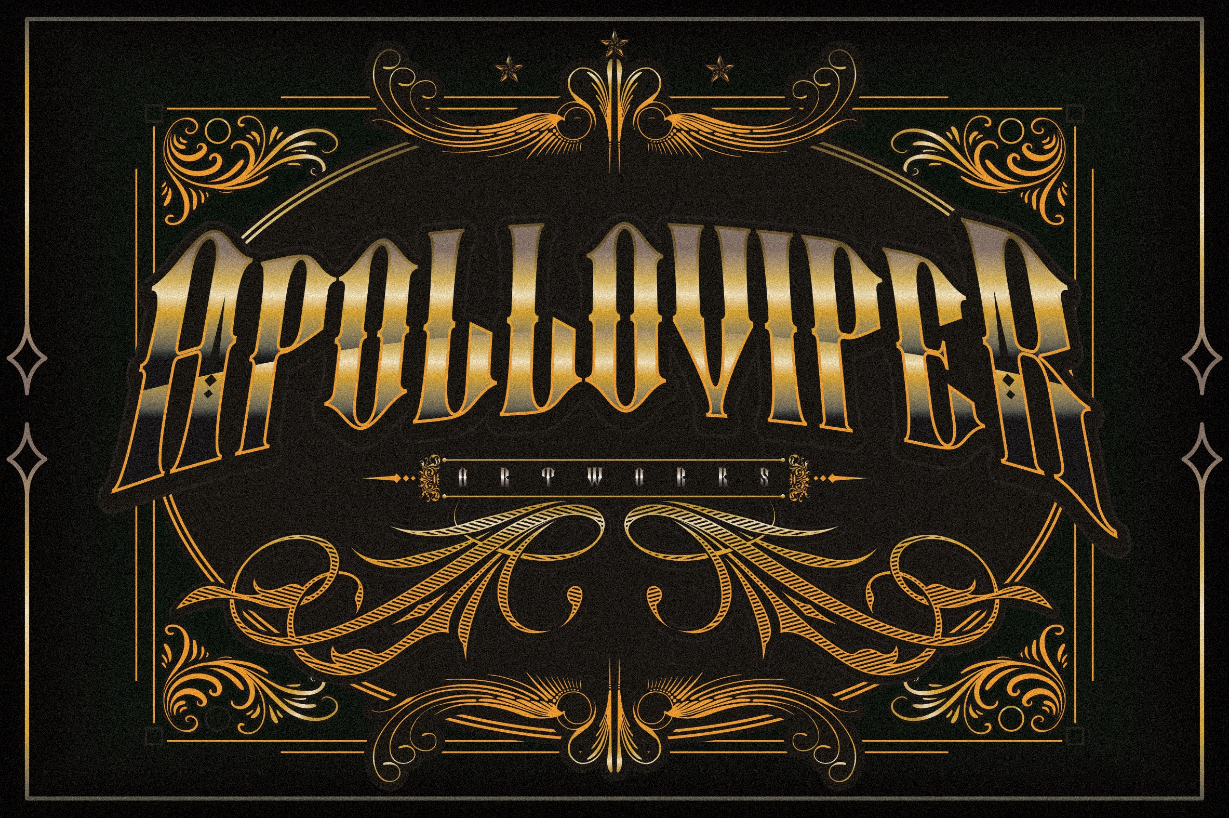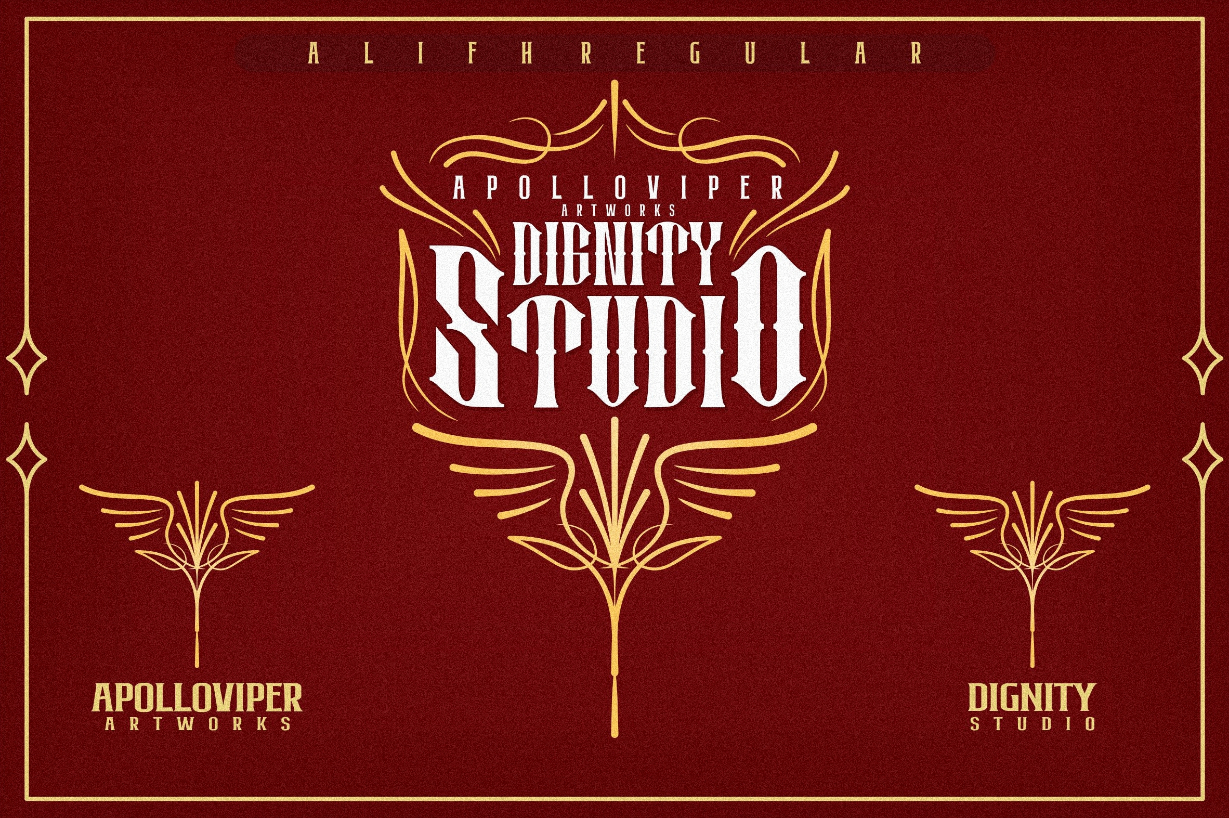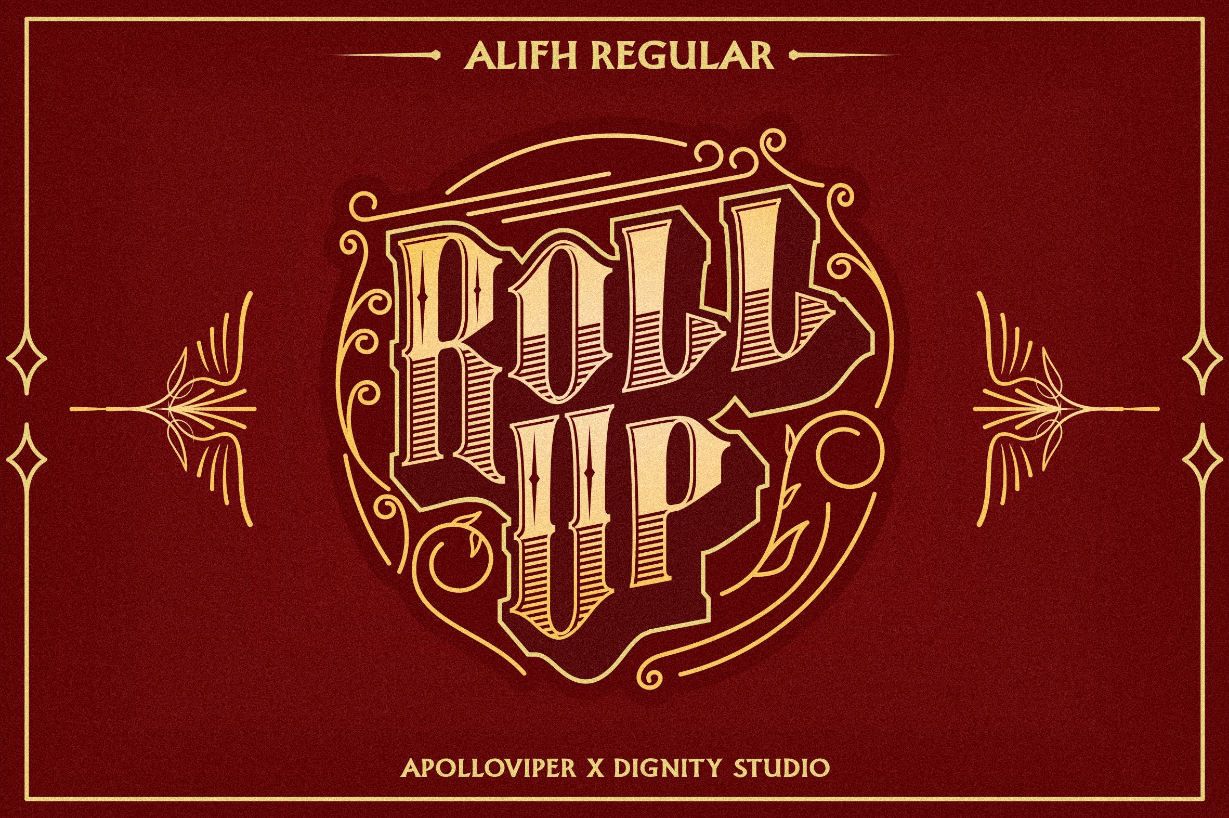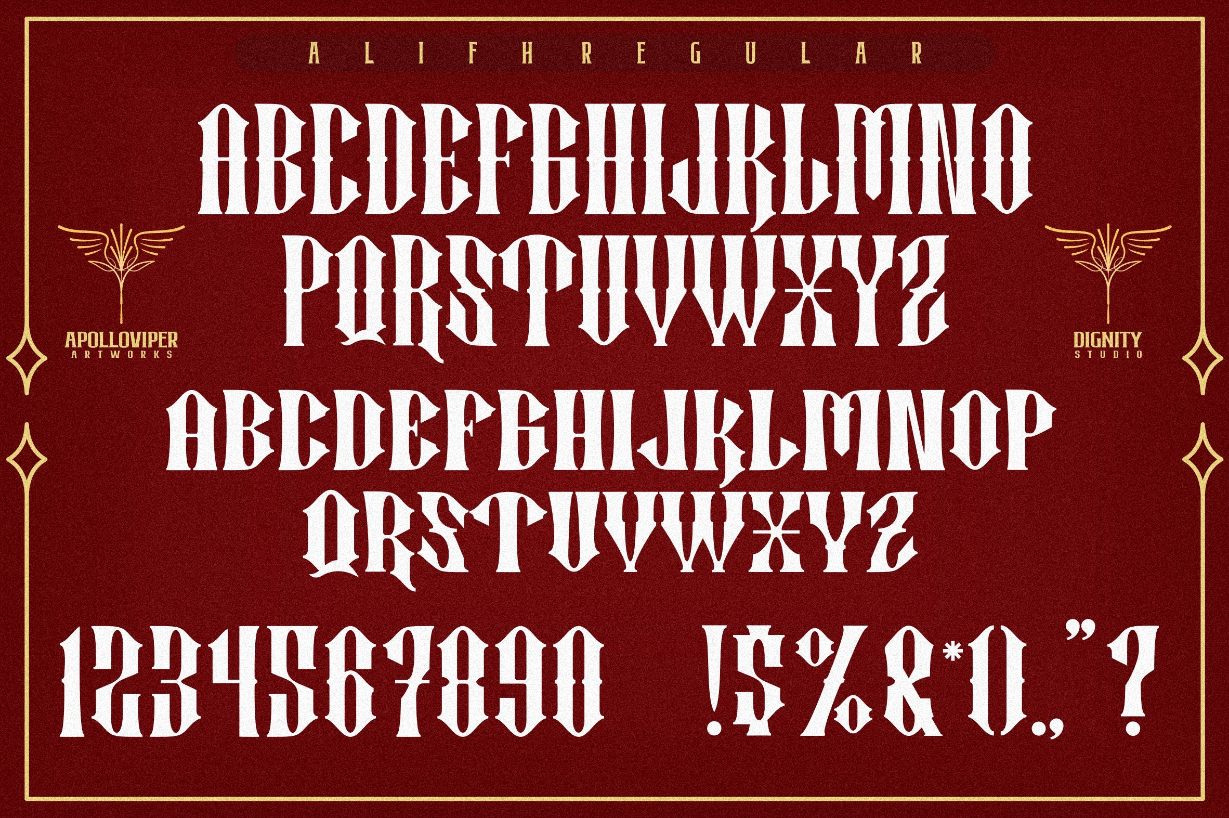
Alifapolloviper Font
About Alifapolloviper Font
Alifapolloviper is a beautiful blackletter font. Use this font for any crafting project that requires a personalized look!